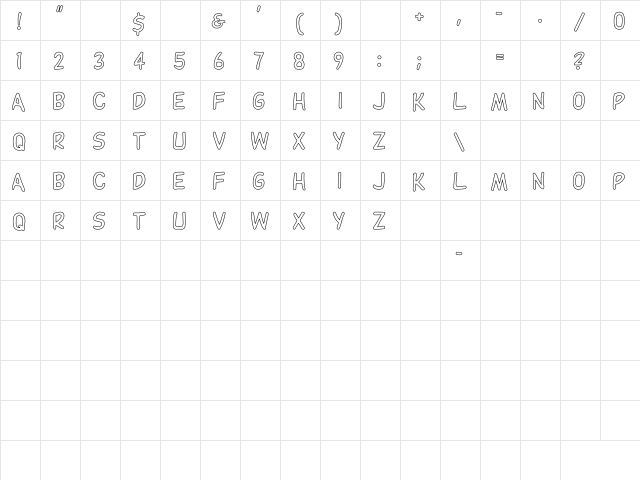
DupuyHeavy Hollow Regular
Design Context for DupuyHeavy Hollow Typeface
DupuyHeavy Hollow offers clean, dependable letterforms without strong stylistic allegiance, making it a practical choice for designers who need flexibility.